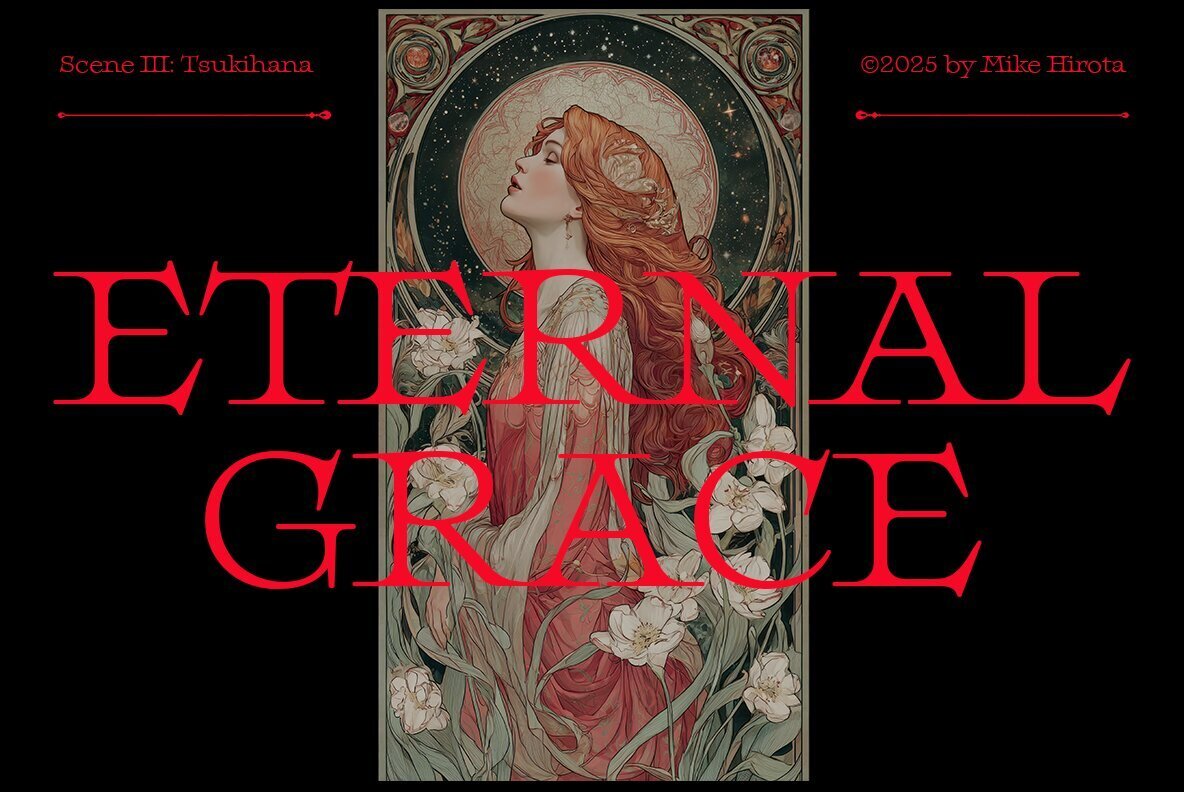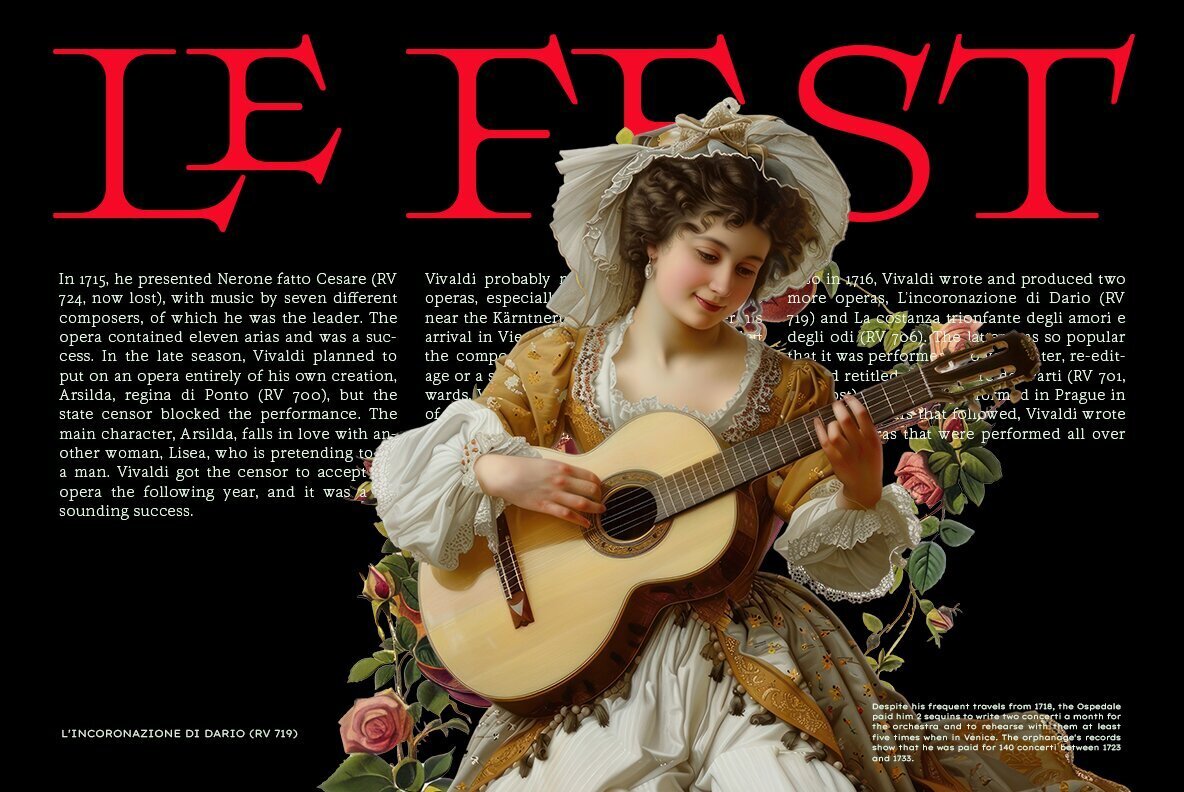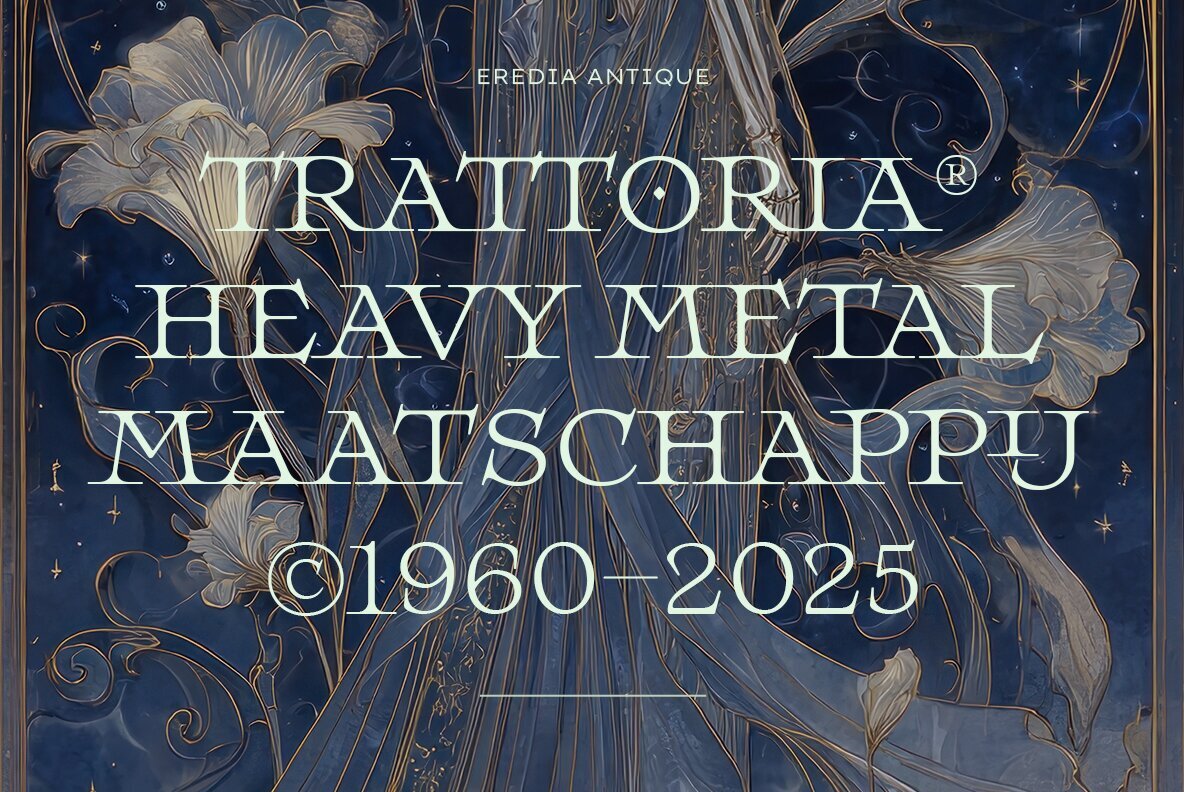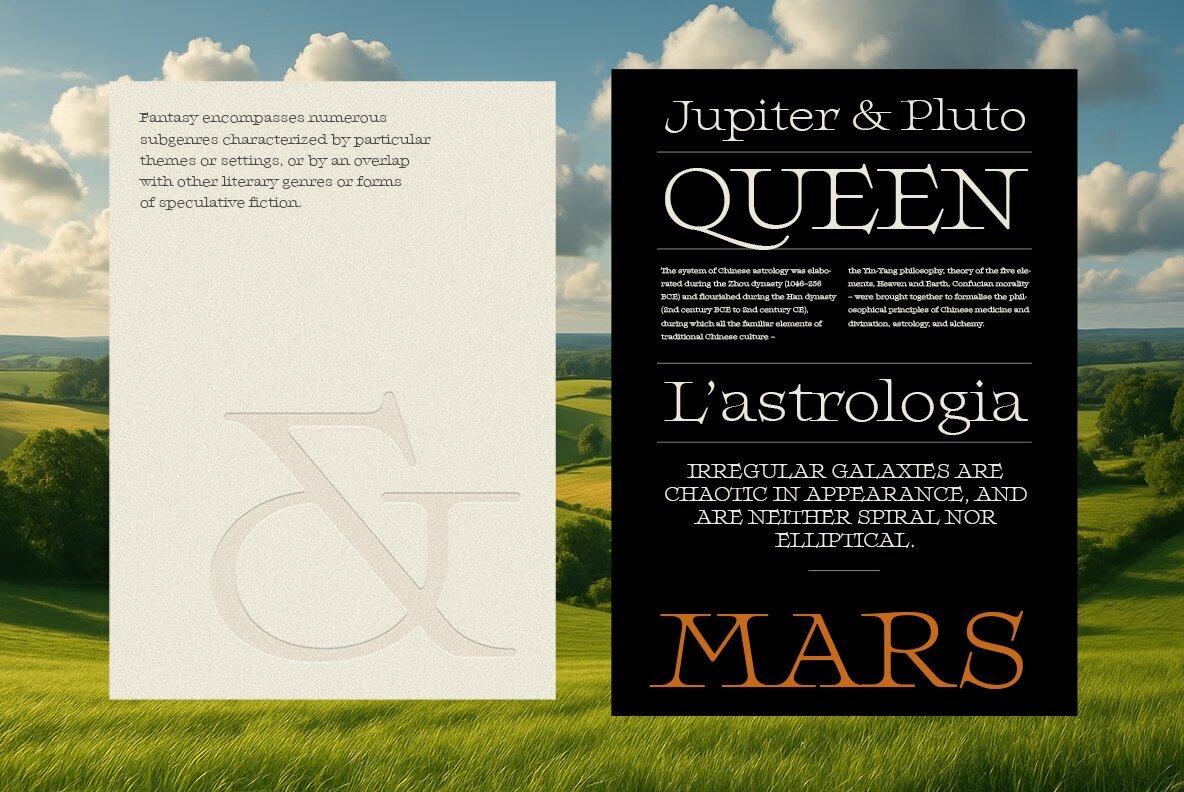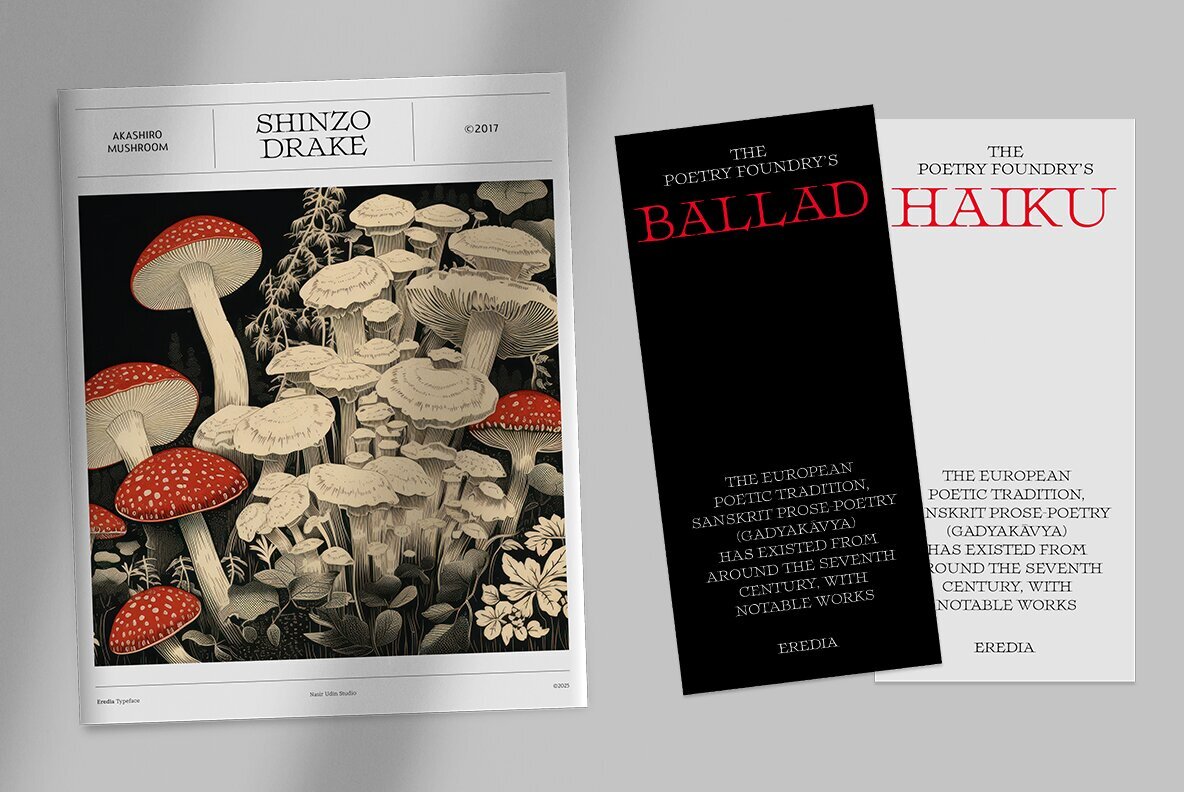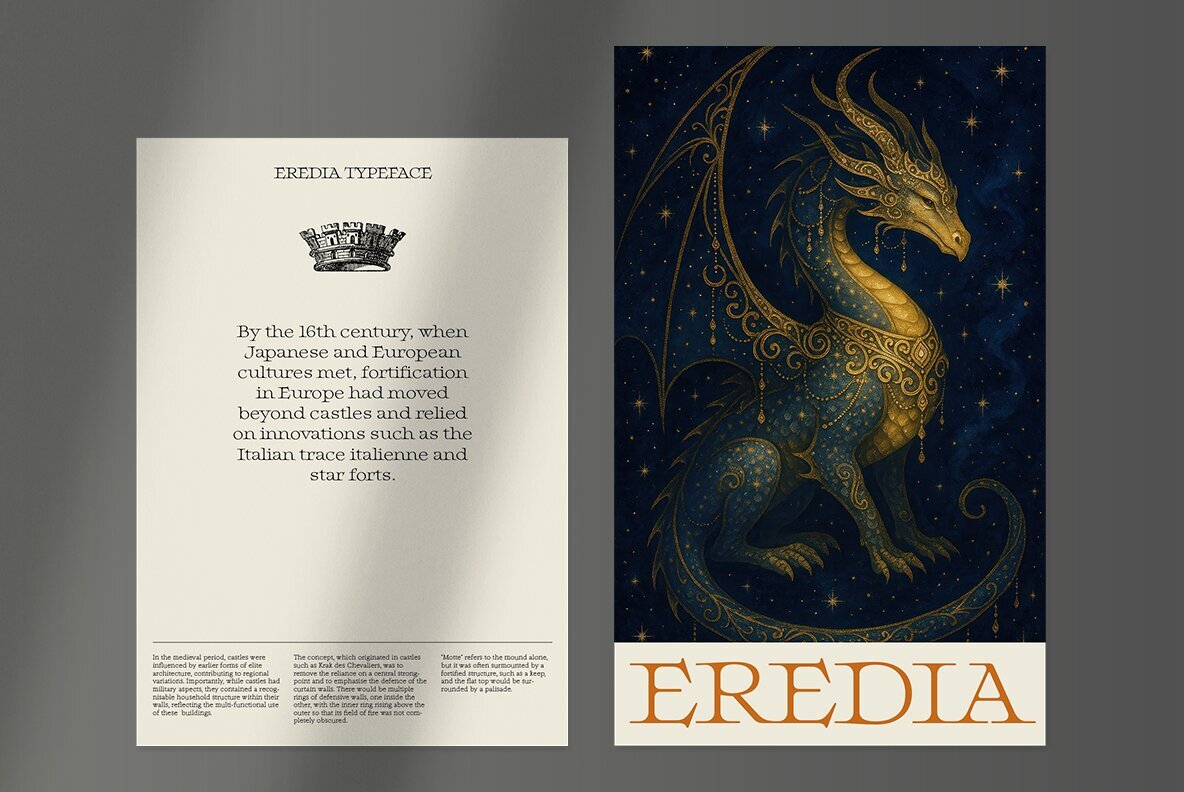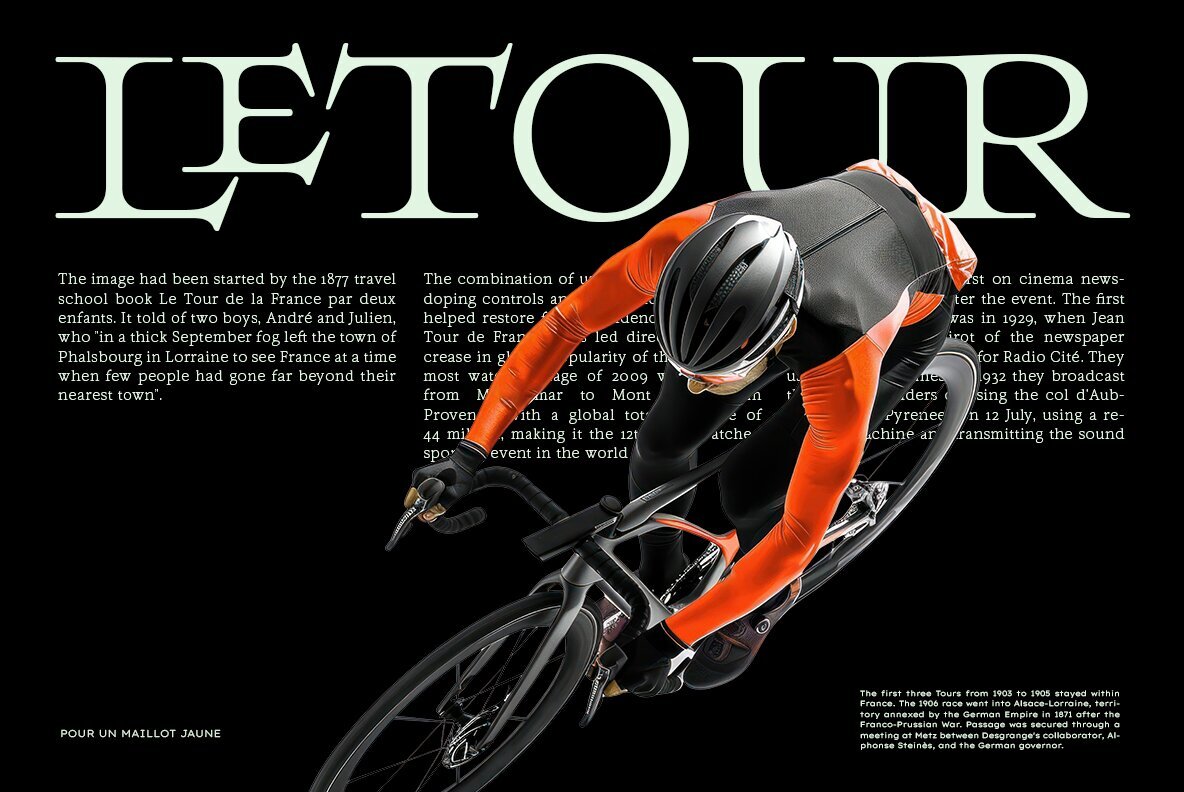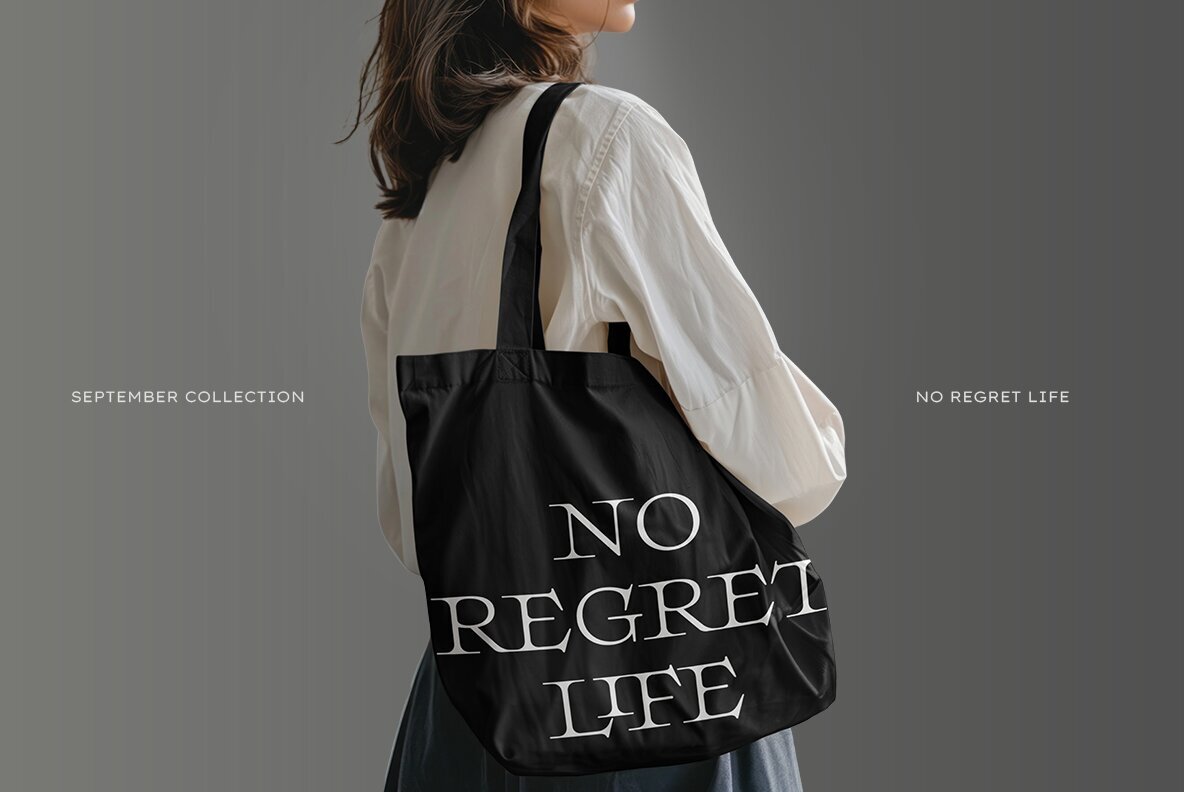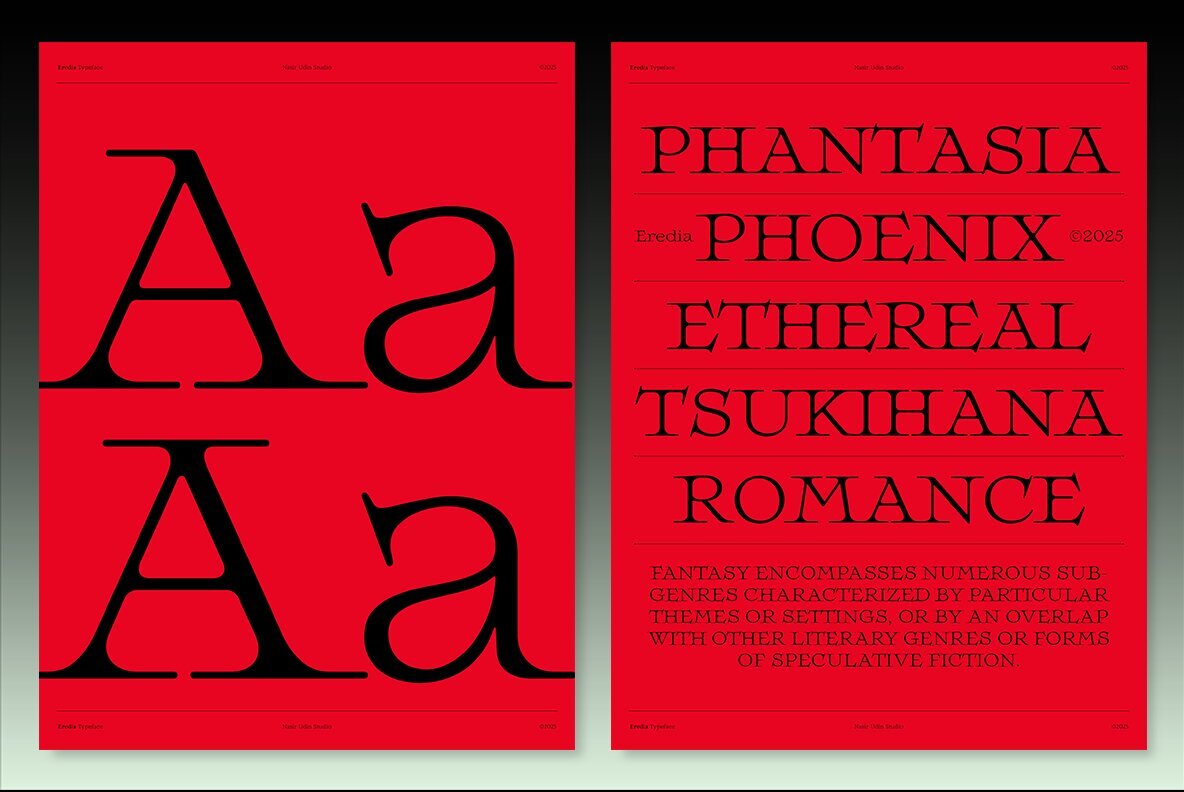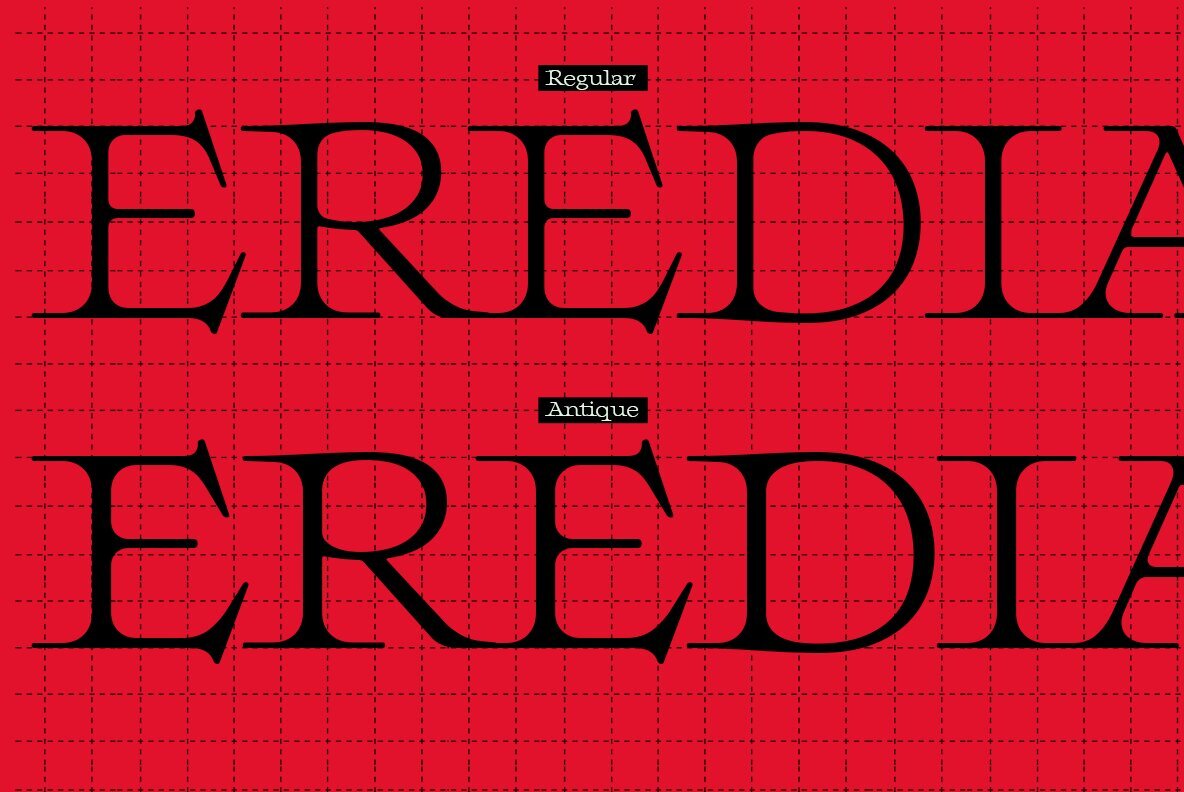
Eredia Font
Eredia Regular
Eredia Antique
Eredia emerges from a realm of whimsy and ethereality, inspired by the delicate, dreamlike presence found in Japanese instrumental music. This typeface embodies a blend of femininity and fantasy, crafted to complement the dark allure of visual branding in creative projects, especially those seeking a touch of fantasy. Eredia offers two distinct styles to enhance your design: Regular and Antique, each contributing its own unique flair.Eredia: Enchanting Typeface With a Touch of Fantasy